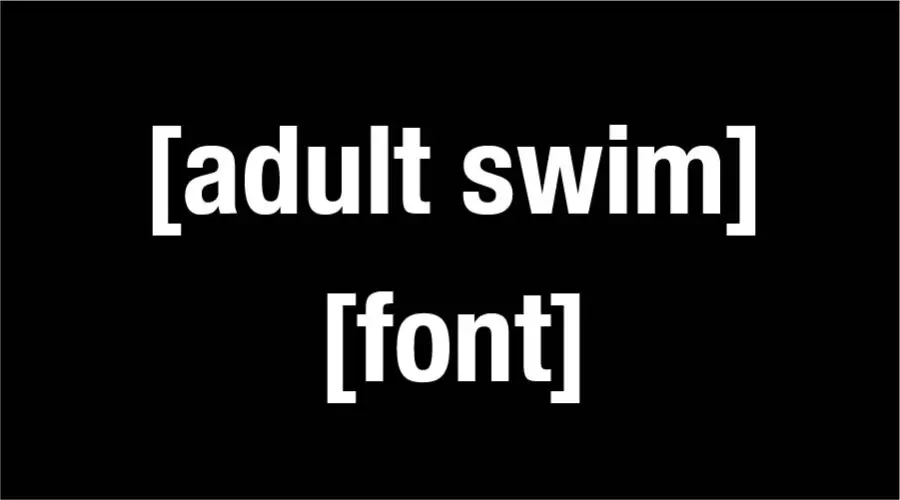
Adult Swim Font
Adult Swim Font used in the logo is actually Helvetica Neue Condensed Bold Font. You can use Milford as a free alternative.
Adult Swim logo vs Helvetica neue Condensed Bold Font similarity
Adult Swim is also known for its unique and creative logo and branding. The logo consists of the words “adult swim” in lowercase letters, enclosed in a black box. The font used in the adult swim logo is Helvetica Neue Condensed Bold, a sans-serif font that was designed by Max Miedinger and Edouard Hoffmann in 1957. Helvetica Neue Bold is a variation of Helvetica, one of the most widely used fonts in the world.
Adult Swim logo vs Milford Condensed Bold Font similarity
In summary, Adult Swim is a night-time programming block on Cartoon Network that features animated and live-action shows for mature audiences. The logo uses Helvetica Neue Bold, a classic sans-serif font, but you can also use Milfcd B, a free and similar font. You can use our adult swim font generator to create custom texts with the font.